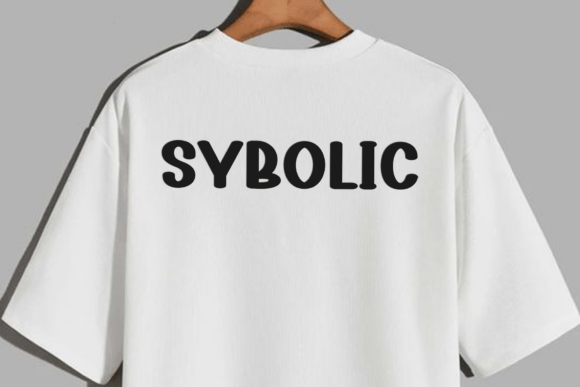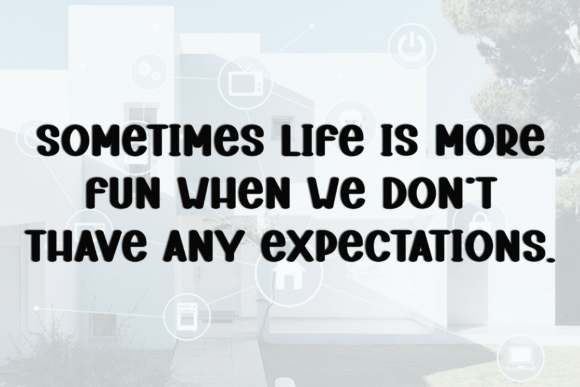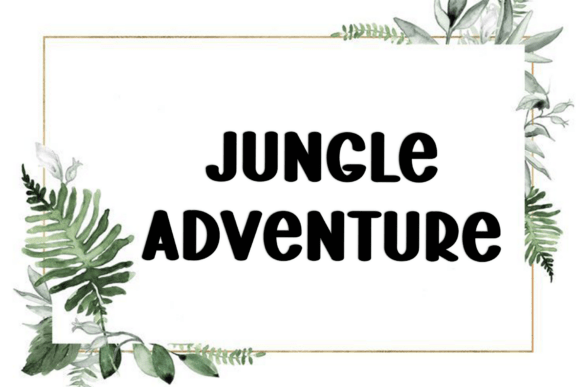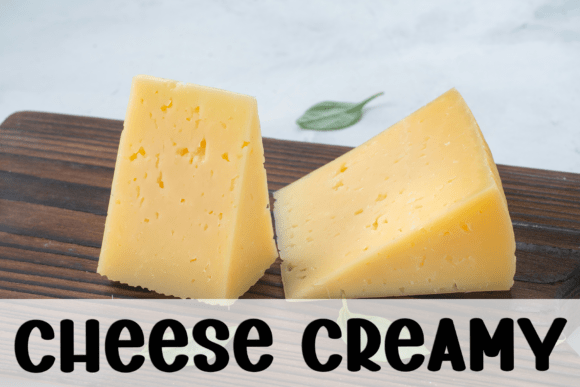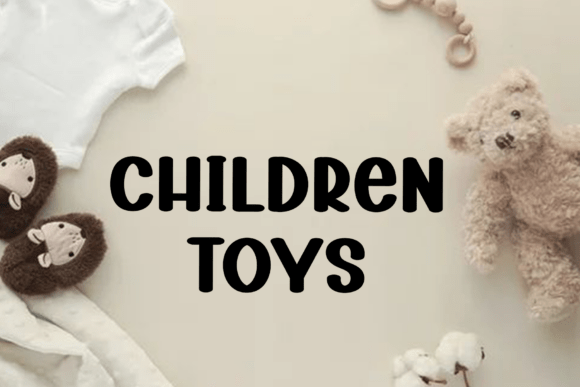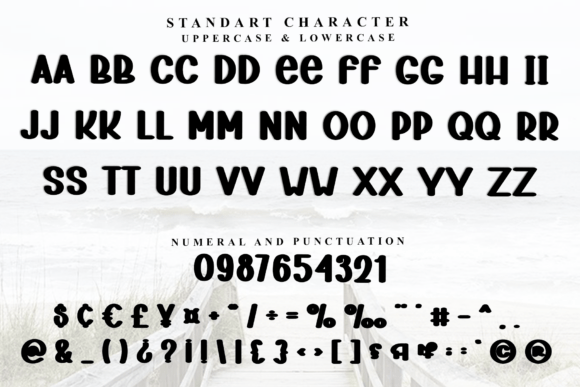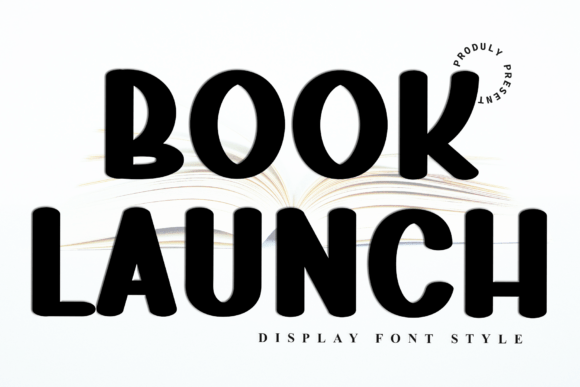
The Ultimate Font for Creative Projects: Book Launch
Have you ever been in the middle of a design project, and suddenly, you’re stuck on finding the perfect font? I recall a particularly frustrating experience when a client’s brand required a unique touch that I just couldn’t seem to nail. That’s when I stumbled upon the Book Launch font, and it completely transformed my design game!
A Personal Review of Book Launch
I’m excited to share my honest review of the Book Launch font, and I’ll cover both the aspects I love and a few quirks I’ve encountered.
• ✨ Unique and Eye-Catching Design: The soft, distinctive strokes of Book Launch give it a special character that’s hard to find in other fonts.
• ✅ Versatility: This font is perfect for a wide range of design projects, from crafts to creative works, and even large-scale commercial products.
• 📚 Extensive Character Set: The font comes with a wide range of characters, ensuring you have everything you need for your designs.
While Book Launch is an excellent font, there are a few minor considerations to keep in mind:
• ⚠️ Glyph Limitations: Some users might find the glyph selection a bit limited for certain projects. However, the existing glyphs are well-designed and versatile.
• 🤔 Kerning Issues: As with any font, you might encounter kerning issues in certain applications. This is not unique to Book Launch, but it’s something to be aware of.
The Backstory of Book Launch
Book Launch was designed with the intention of creating a font that combines elegance with a unique, hand-crafted feel. The designer aimed to produce a font that would be versatile enough for various creative projects while maintaining a distinctive character. The result is a font that feels both natural and sophisticated.
Is Book Launch easy to read? Yes, despite its unique design, Book Launch is clear and easy to read, making it suitable for body text and headings.
In conclusion, Book Launch is a beautiful and versatile font that can elevate a wide range of design projects. Its unique character, combined with its compatibility across different platforms, makes it an excellent choice for designers, crafters, and creative hobbyists alike.